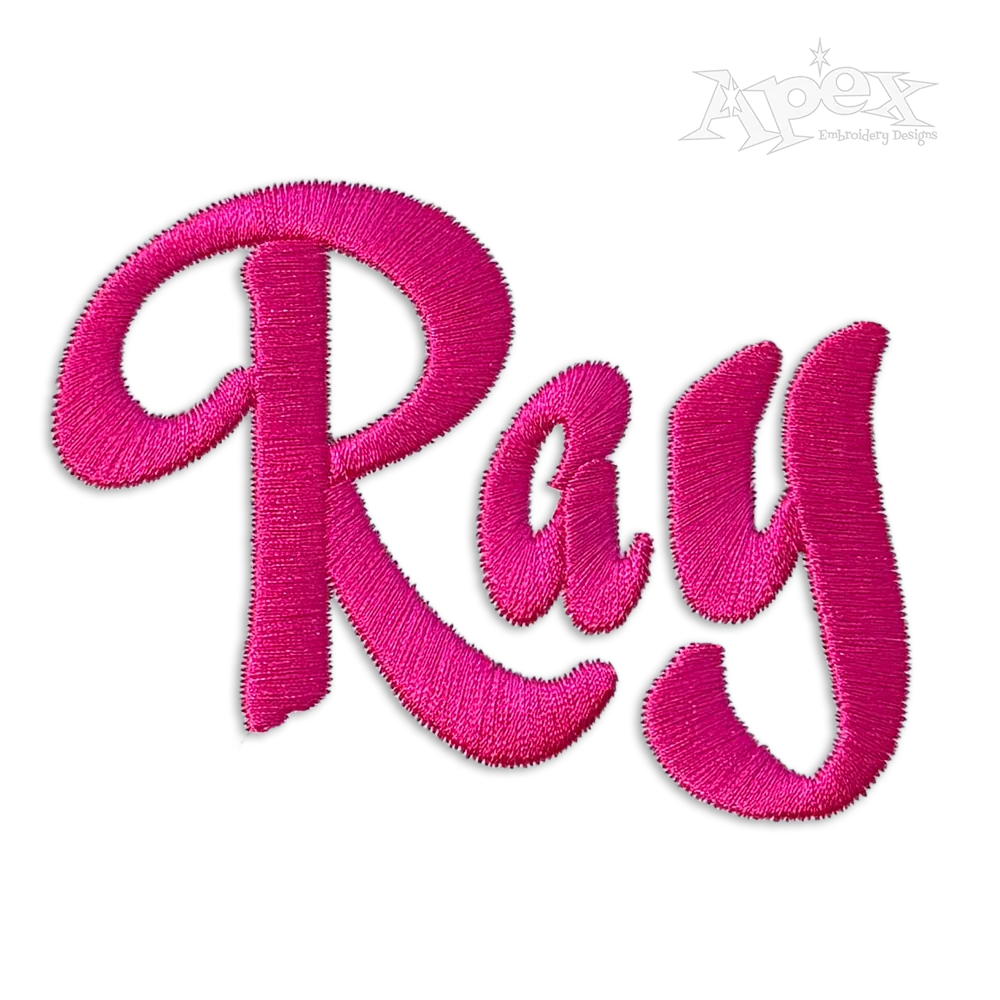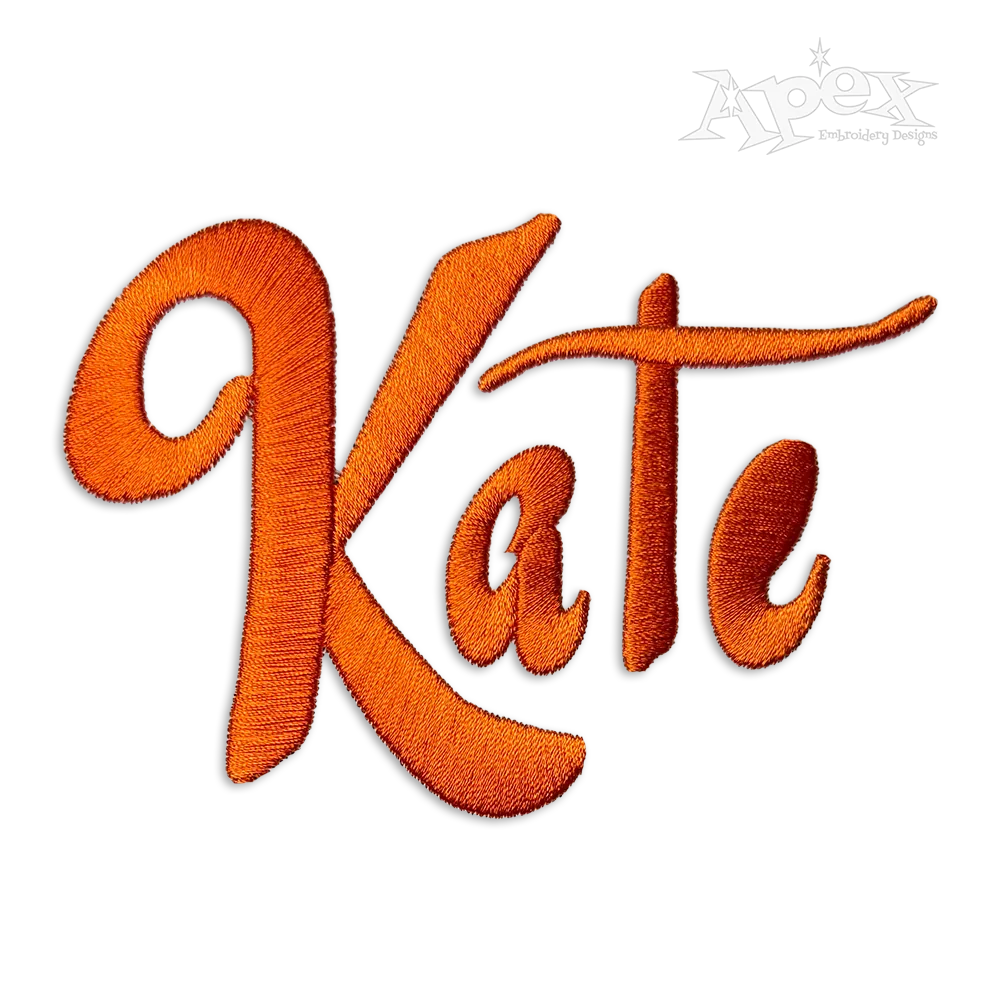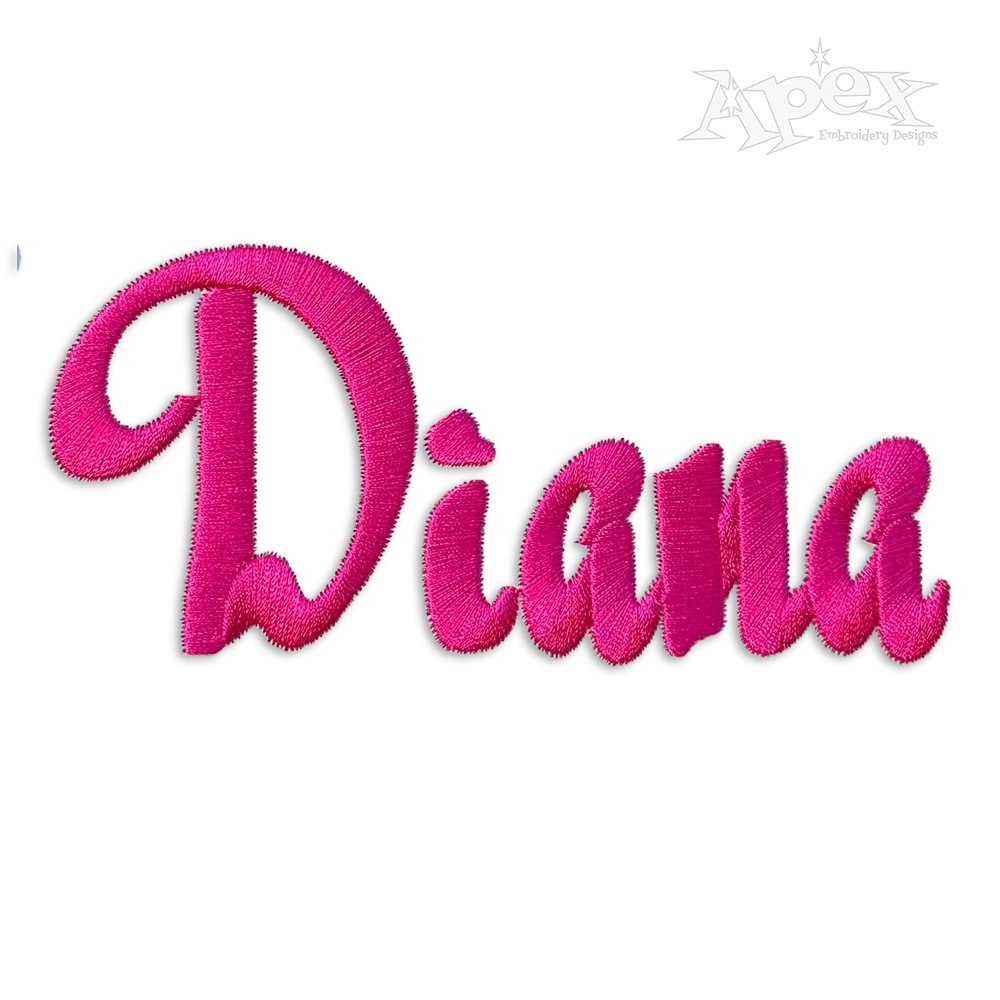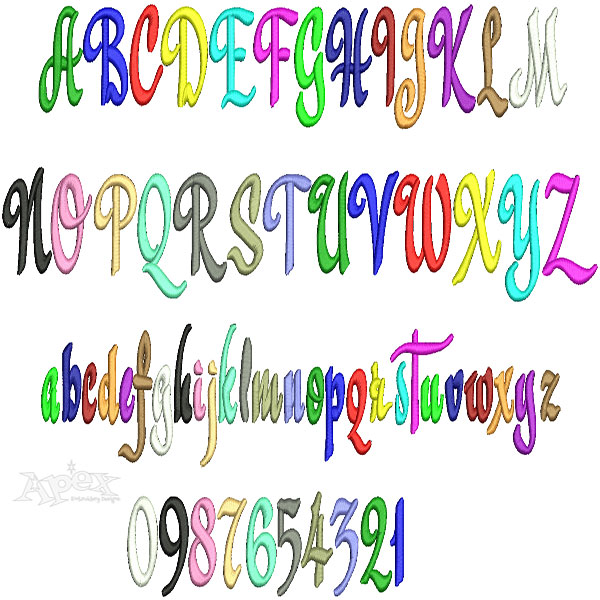
Christmas Embroidery Font
Capturing the nostalgic warmth of frosted windowpanes, twinkling tree lights, and classic mid-century holiday cinema, our Christmas Embroidery Font brings the spirited charm of vintage brush calligraphy straight to your needle. Inspired by the iconic, whimsical hand-lettered titles of beloved winter films, each character radiates joyful movement and bold character. We designed this alphabet to evoke that unmistakable feeling of curling up by a crackling hearth—translating the lively swagger of painted script into smooth, radiant satin thread that catches the holiday glow across winter textiles.
- Complete Character Set: Full uppercase alphabet (A–Z), lowercase alphabet (a–z), and matching numerals (0–9) across all three sizes.
- Stitch Construction: 100% rich, high-density satin stitch digitized specifically for fluid stitch transitions and maximum luster.
Thanks to its balanced baseline and jaunty stroke rhythm, this font adapts effortlessly to curved and straight borders alike:
Christmas Embroidery Font Craft & Letterform Details
True brush calligraphy relies on pressure, cadence, and variation—qualities that often get lost in automated stitch conversions. In crafting this font, we hand-mapped every individual satin column to recreate the sweep of an artisan's ink-laden brush. The ascenders feature deliberate, jaunty loops while the baseline bounces with whimsical retro charm, giving long phrases an authentic hand-painted energy rather than a stiff, mechanical appearance.
Special engineering was devoted to directional pull compensation and pathing. The stitches flow seamlessly around curved transitions without bunching at the joints, preserving clean letter legibility on knits, linens, and deep-pile fabrics. The calculated satin angles accentuate thread reflectivity, so metallic, silk, or classic poly embroidery threads reflect ambient light with the warm, nostalgic radiance of an old-fashioned Christmas morning.